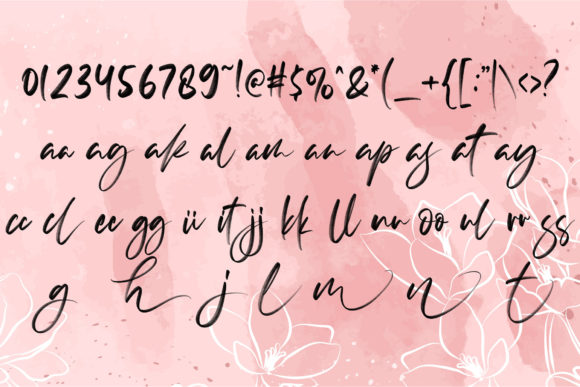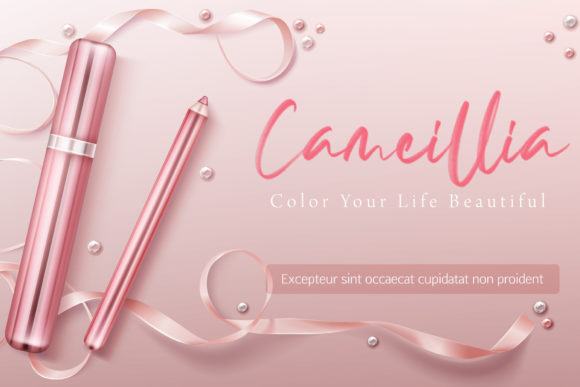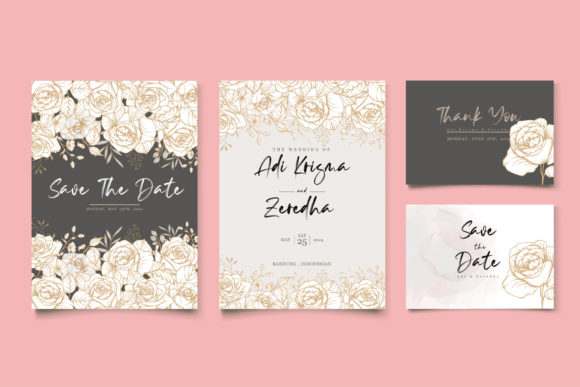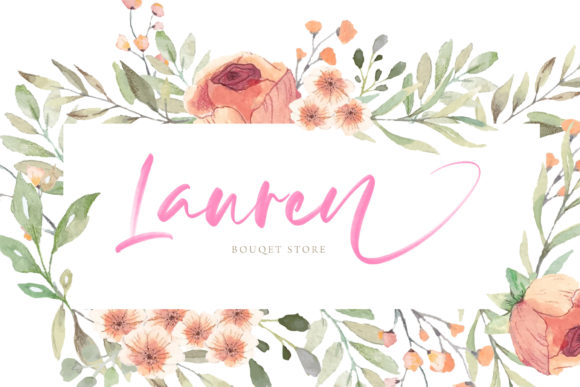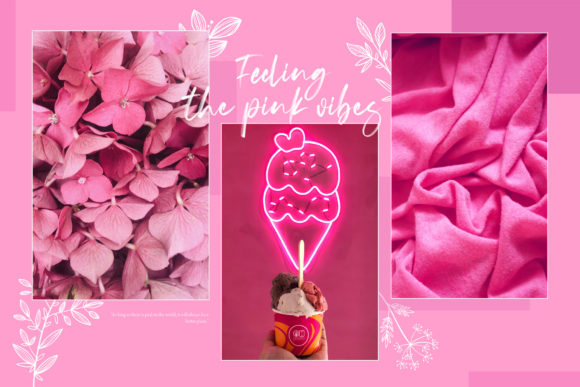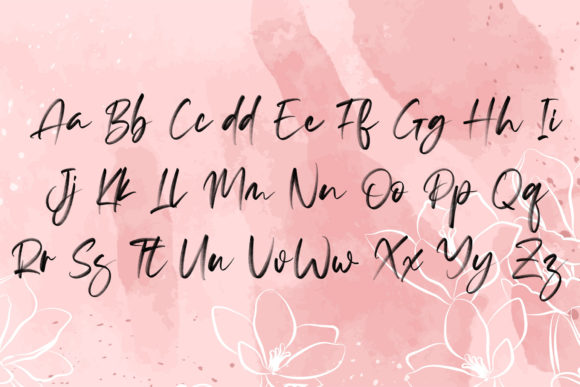
Batcheart Font: The Ultimate Guide to this Trendy and Chic Handwritten Font
Are you a designer or crafter looking for a font that can add a touch of elegance and sophistication to your projects? Look no further than Batcheart Font! This trendy and chic handwritten font is perfect for creating stunning wedding invitations, beautiful stationery art, eye-catching social media posts, and much more.
What is Batcheart Font?
Batcheart Font is a modern and stylish handwritten font that has taken the design world by storm. Its ravishing style and unique charm make it the perfect choice for designers and crafters who want to add a personal touch to their projects. Whether you’re creating wedding invitations, social media graphics, or stationery art, Batcheart Font is sure to impress.
Features of Batcheart Font
So, what makes Batcheart Font so special? Here are some of its key features:
• Trendy and Chic: Batcheart Font is a modern and stylish font that is perfect for designers and crafters who want to stay on top of the latest design trends.
• Handwritten Style: This font has a beautiful handwritten style that adds a personal touch to any project.
• Versatile: Batcheart Font can be used for a wide range of projects, from wedding invitations and stationery art to social media graphics and more.
• Elegant and Sophisticated: This font has an elegant and sophisticated feel that is perfect for creating stunning designs.
Uses of Batcheart Font
So, what can you use Batcheart Font for? The possibilities are endless! Here are some ideas to get you started:
• Wedding Invitations: Create stunning wedding invitations that will impress your guests and set the tone for your special day.
• Stationery Art: Use Batcheart Font to create beautiful stationery art, including greeting cards, thank you cards, and more.
• Social Media Graphics: Create eye-catching social media graphics that will help you stand out from the crowd and engage your audience.
• Branding: Use Batcheart Font to create a unique and memorable brand identity that reflects your personality and style.
Tips for Using Batcheart Font
Here are some tips for using Batcheart Font to get the best results:
• Pair it with Other Fonts: Batcheart Font looks great when paired with other fonts, so don’t be afraid to experiment and find the perfect combination.
• Use it for Headings: Batcheart Font is perfect for headings and titles, so use it to add a touch of elegance and sophistication to your designs.
• Experiment with Colors: Batcheart Font looks great in a variety of colors, so don’t be afraid to experiment and find the perfect color scheme for your project.
In conclusion, Batcheart Font is a trendy and chic handwritten font that is perfect for designers and crafters who want to add a touch of elegance and sophistication to their projects. With its ravishing style and unique charm, Batcheart Font is sure to impress. Whether you’re creating wedding invitations, social media graphics, or stationery art, Batcheart Font is the perfect choice. So why wait? Fall for Batcheart Font today and start creating stunning designs that will leave a lasting impression!
• What is Batcheart Font? Batcheart Font is a trendy and chic handwritten font that is perfect for designers and crafters who want to add a touch of elegance and sophistication to their projects.